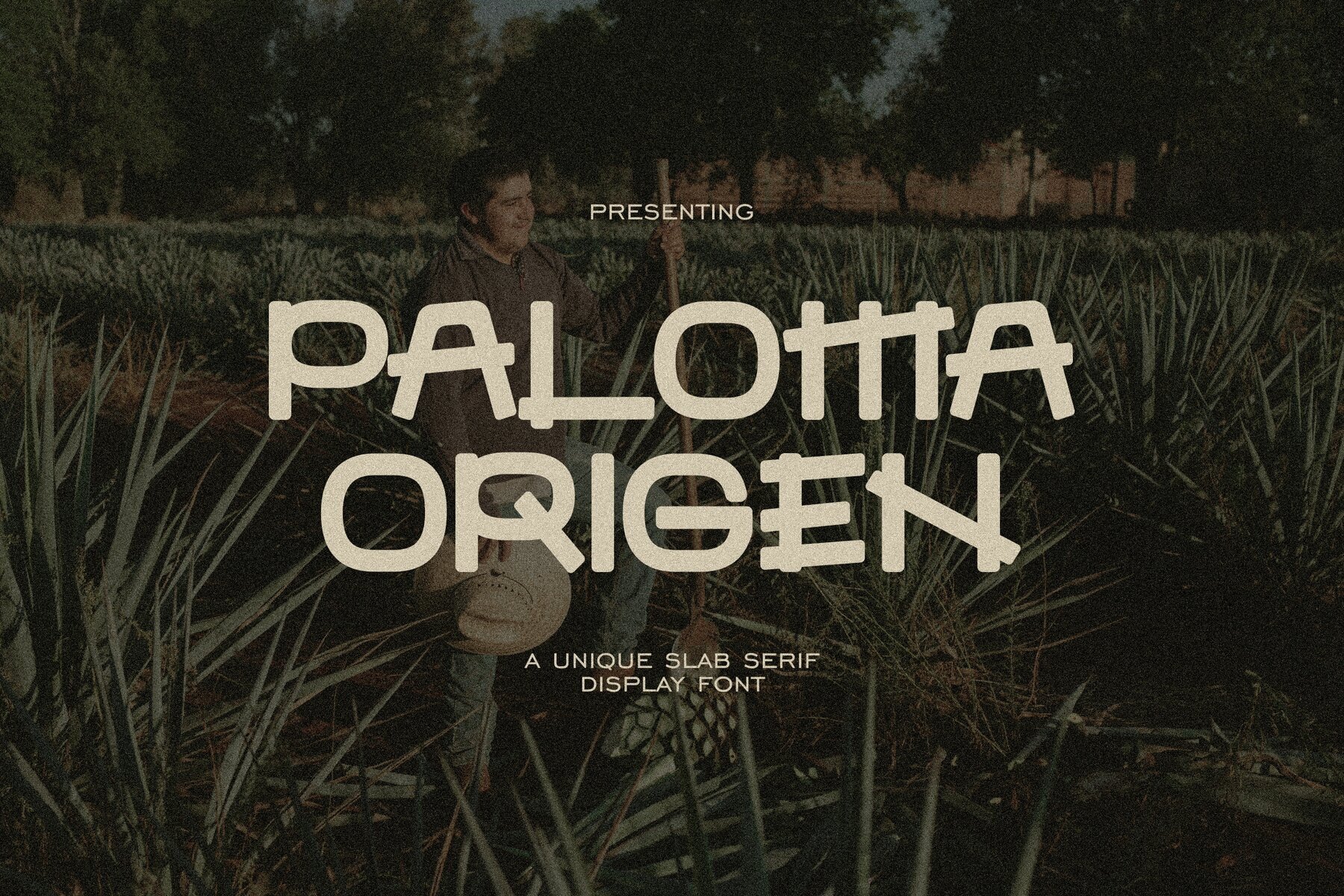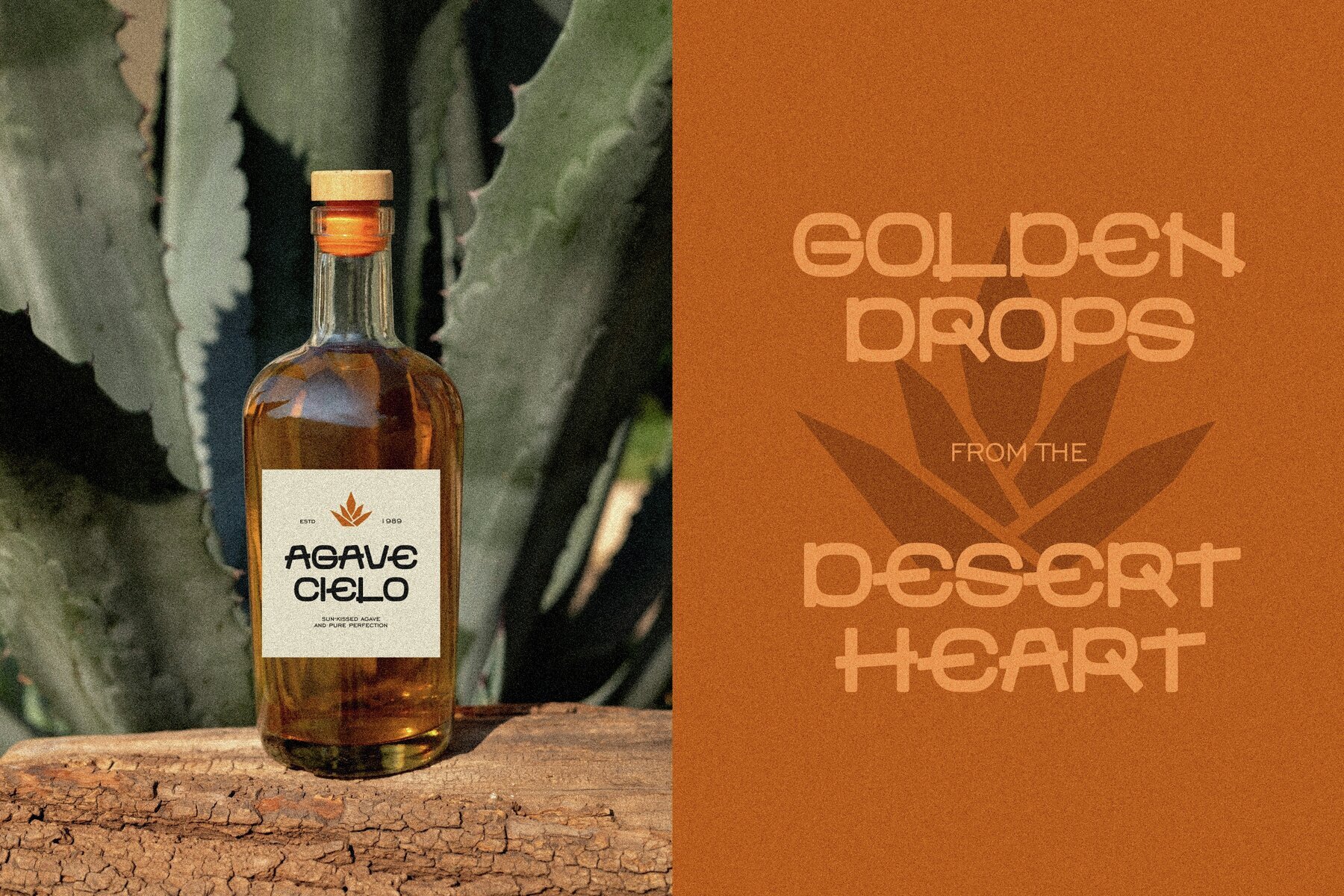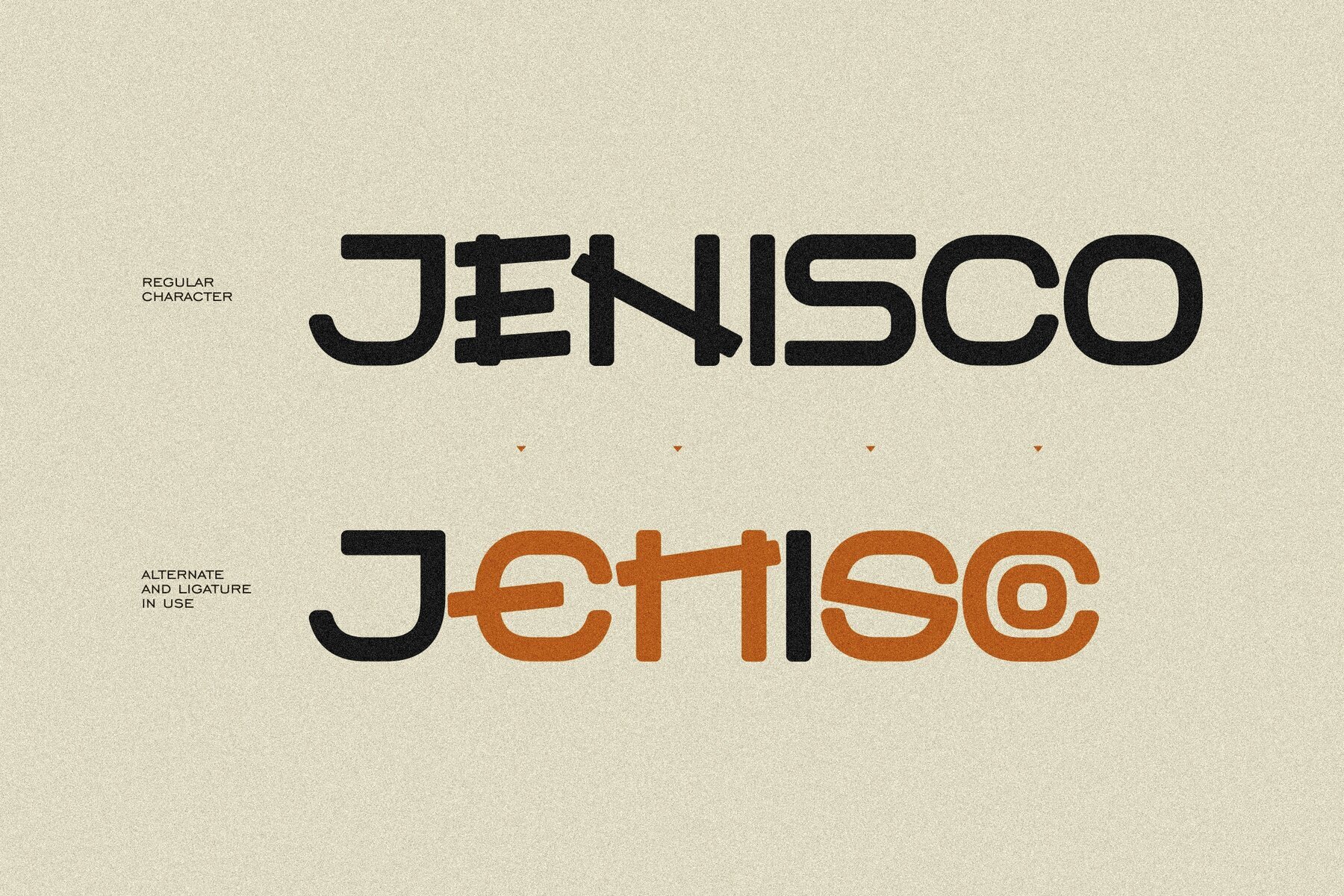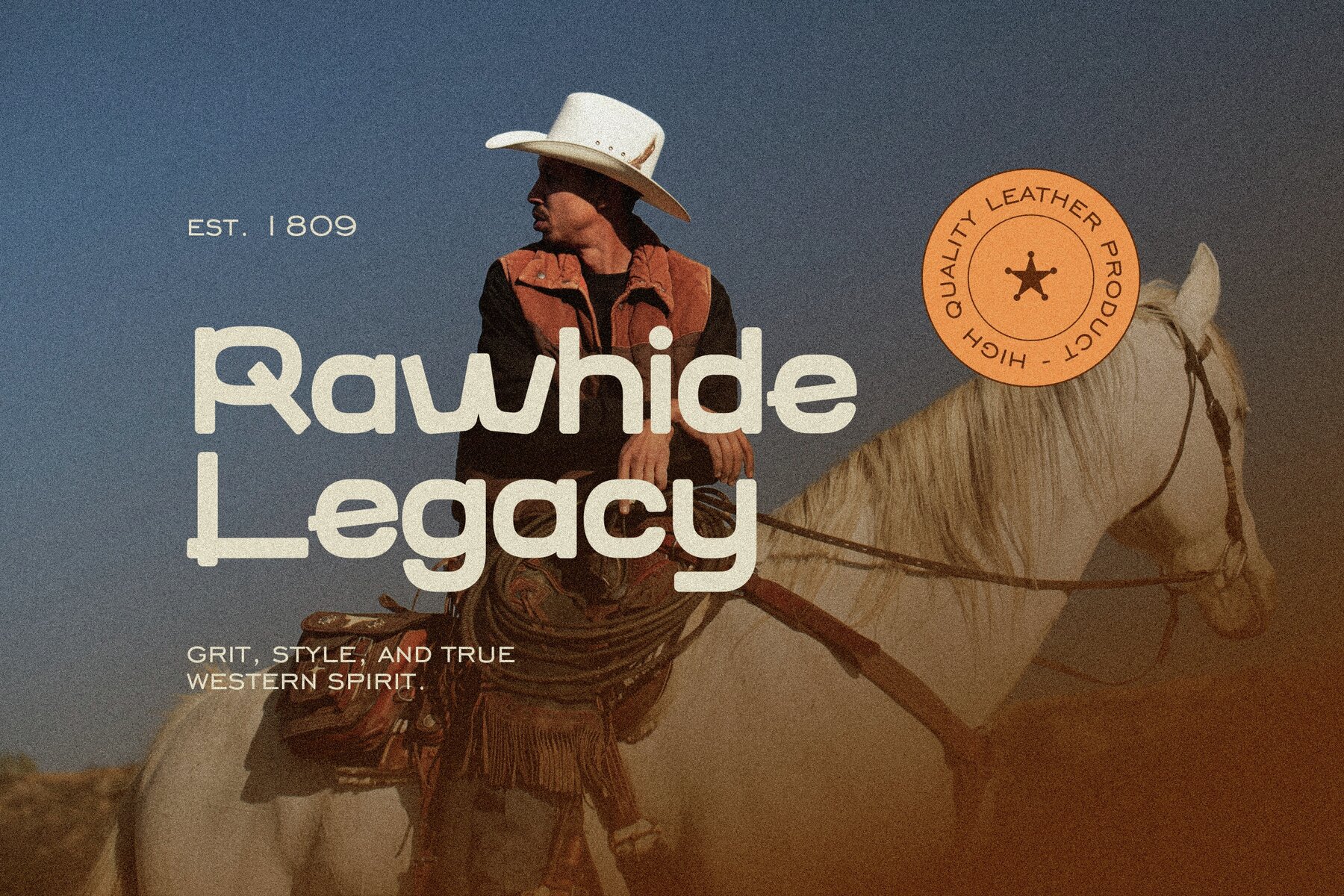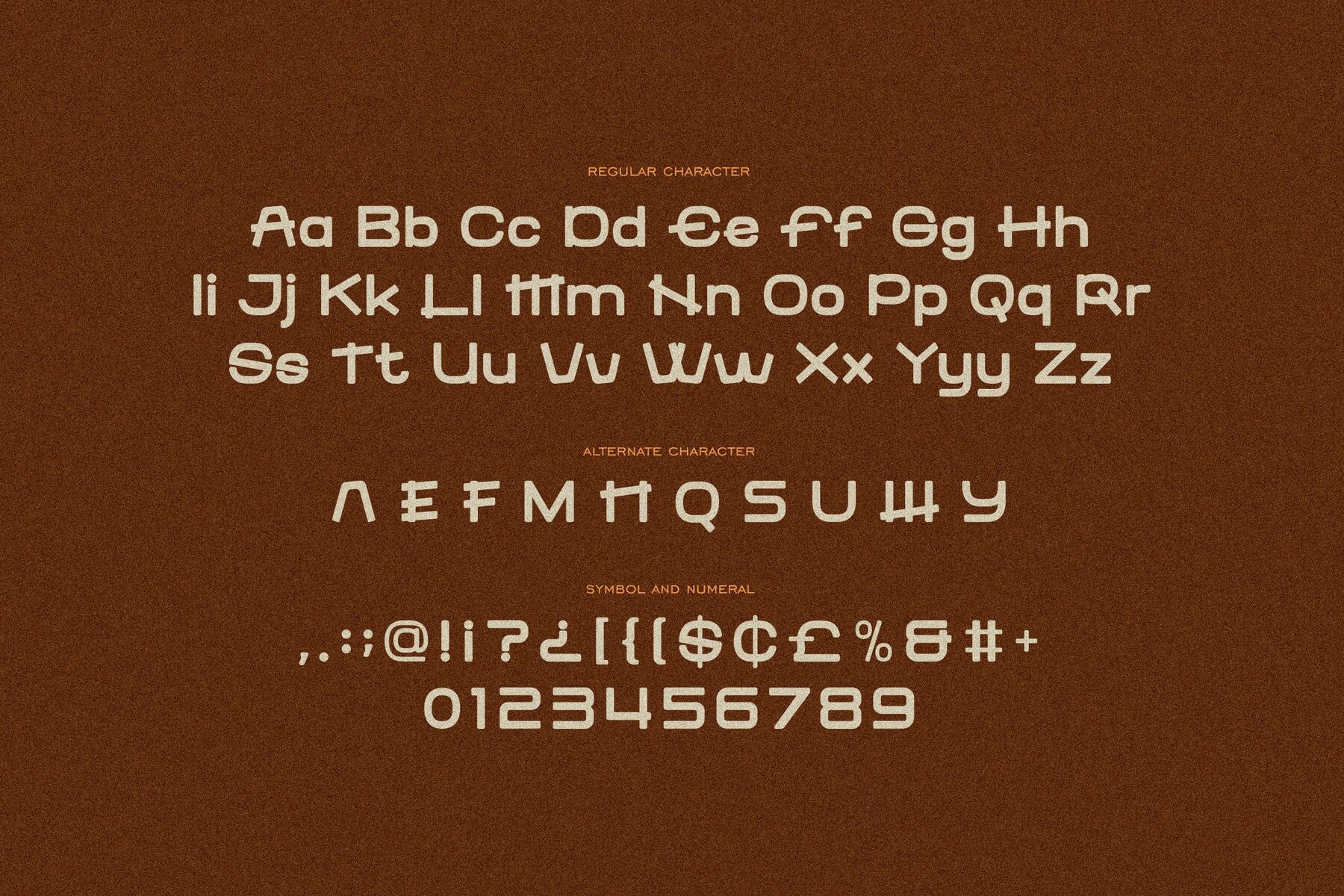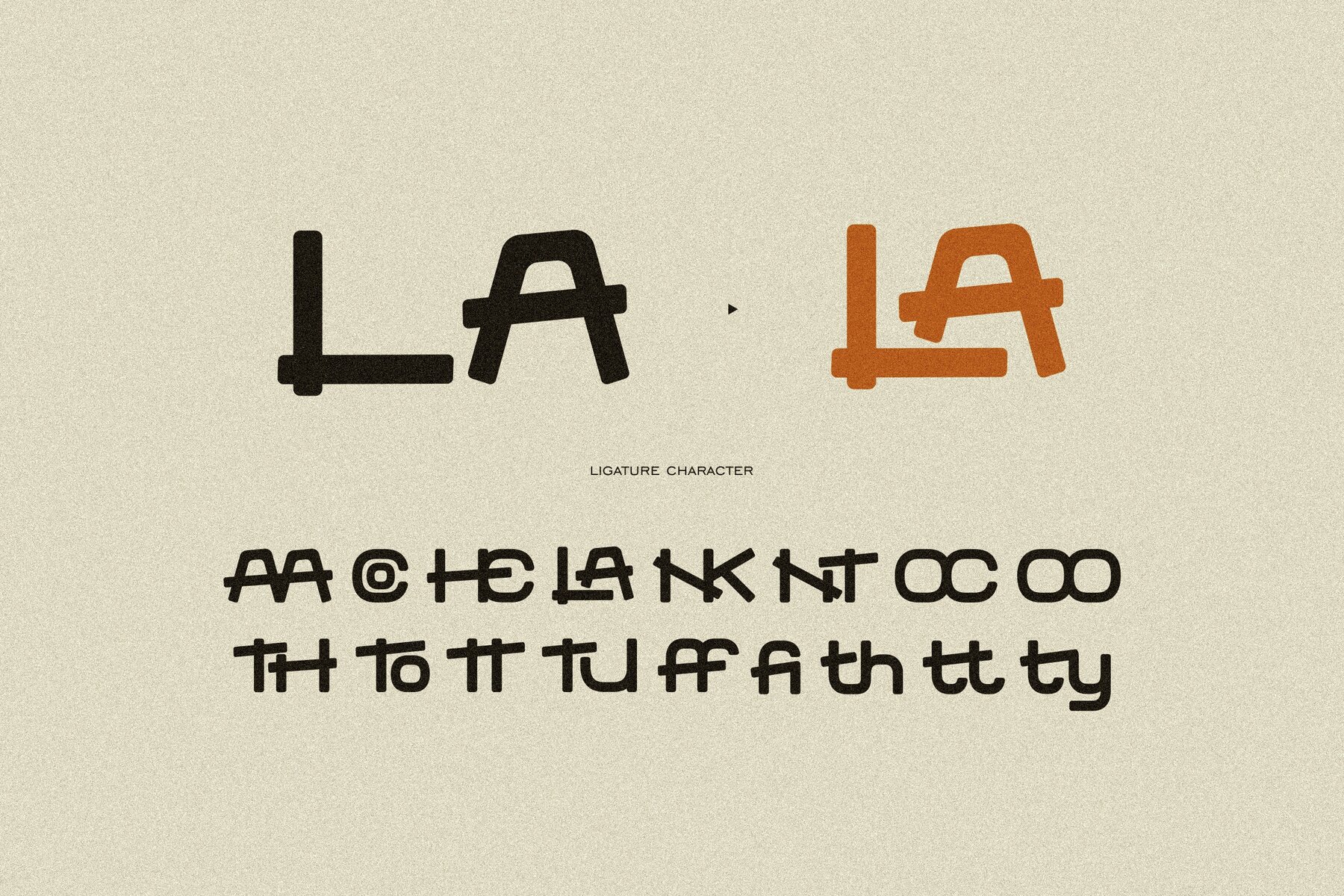
Paloma Origen Font
Paloma Origen Regular
Paloma Origen blends handdrawn details with vintage inspiration, offering a display typeface that channels both the spirit of the Western landscape and modern design sensibilities. From the first glance, each letterform carries a tactile quality—imbued with subtle imperfections reminiscent of sun-soaked deserts and agave traditions, yet grounded by geometric structure. This balance makes Paloma Origen a reliable choice for projects requiring a sense of authenticity and distinction. The character set includes alternates, ligatures, and uniquely cut forms, lending flexibility to your typography. Move confidently between polished, minimal layouts and branding that calls for a rough-hewn, heritage aesthetic. Whether you're building an identity for artisanal beverages, designing for lifestyle apparel, or shaping dynamic editorial spreads, Paloma Origen adapts seamlessly. With its blend of resilience and character, Paloma Origen stands out as a versatile typeface for designers seeking genuine visual impact.Paloma Origen: Handdrawn Typeface with Vintage Western Character